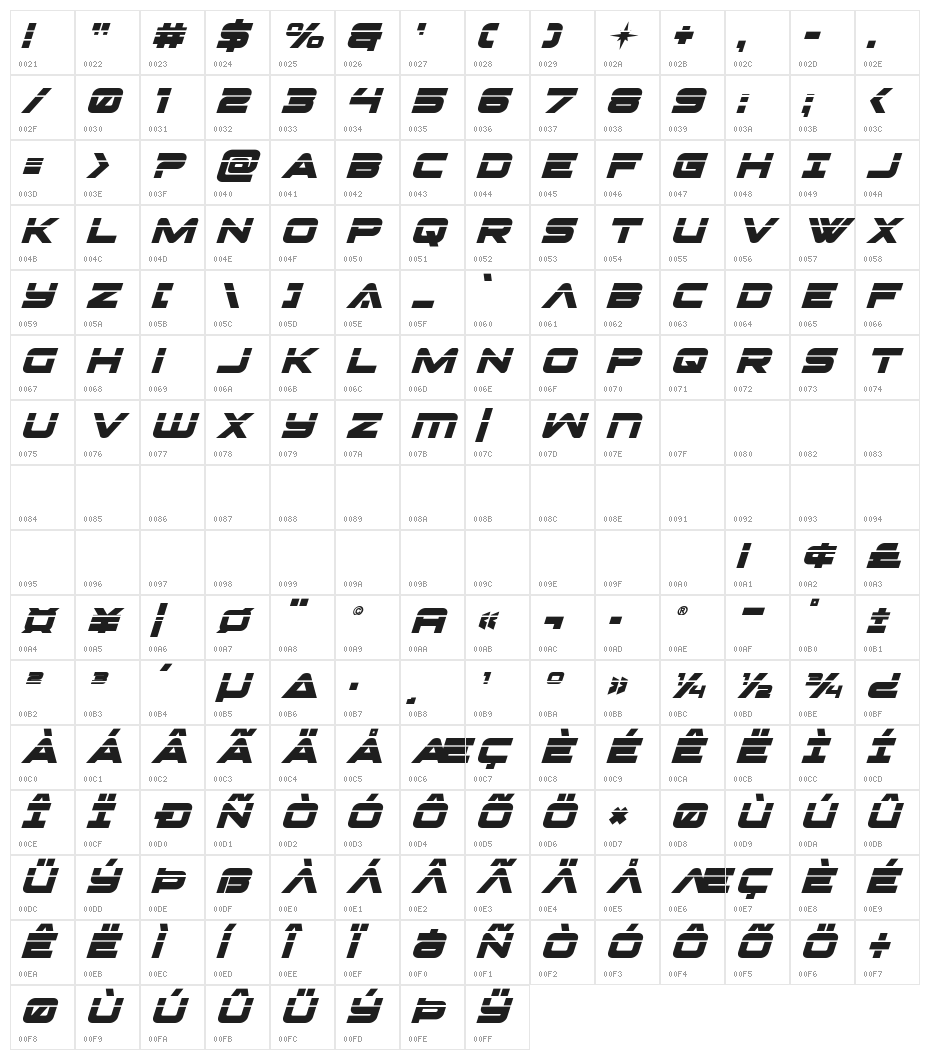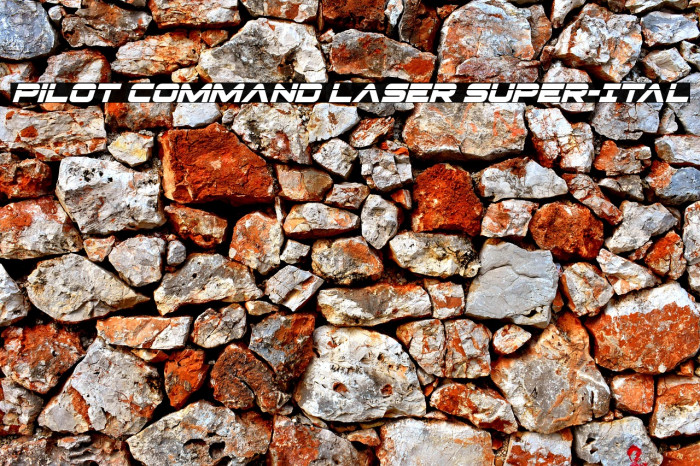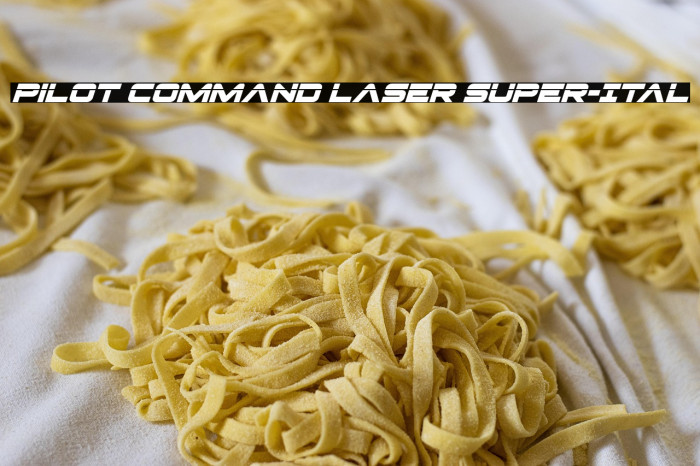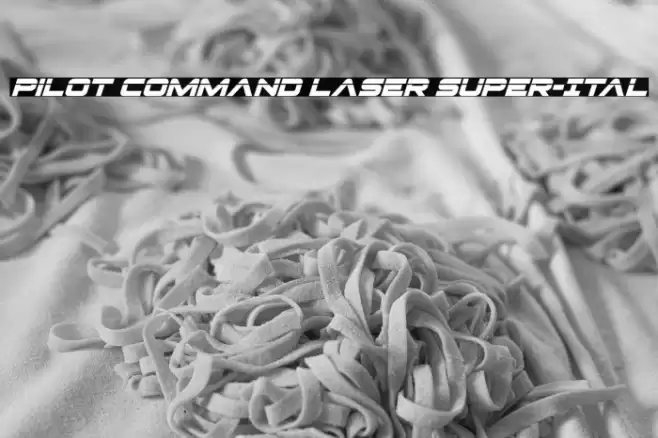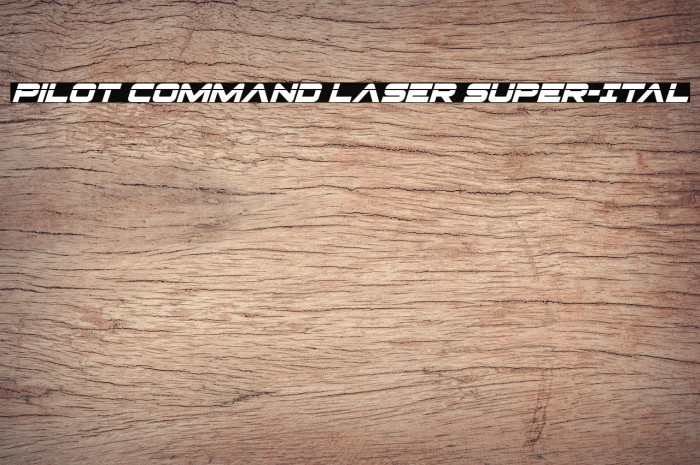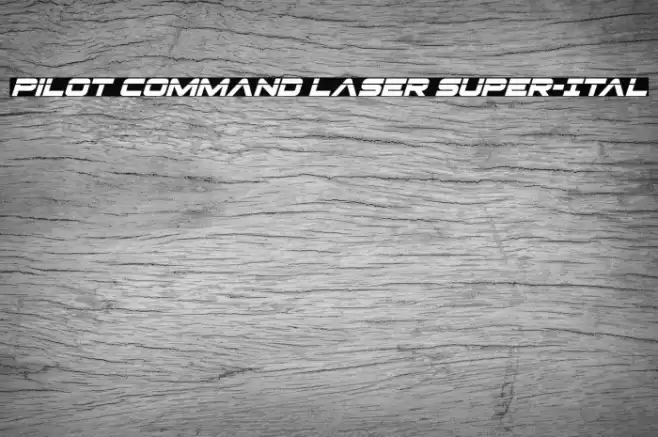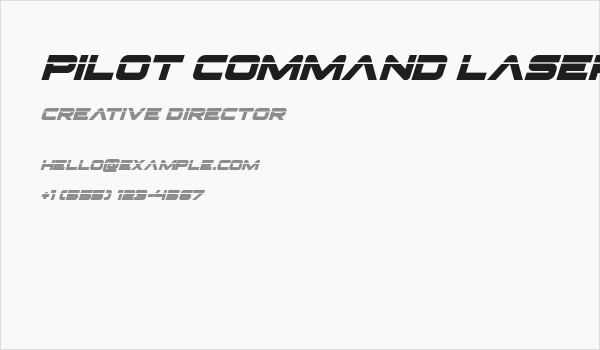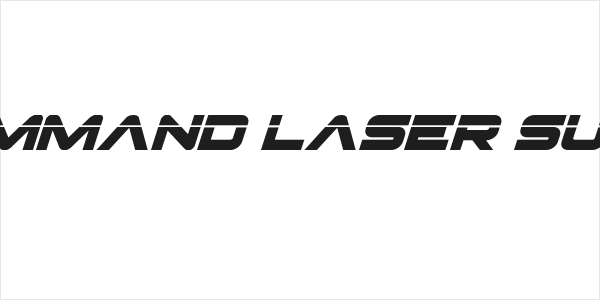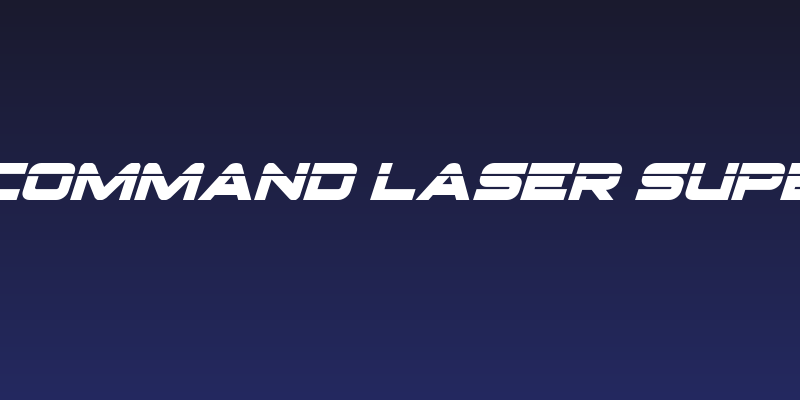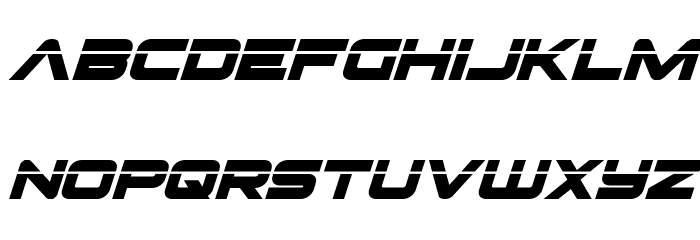
Pilot Command Laser Super-Ital Font
Pilot Command Laser Super-Ital Description
This font features a futuristic and dynamic design, characterized by its sharp angles and sleek lines. The letters are italicized, giving a sense of motion and speed. Each character is bold and impactful, with a distinct geometric style that emphasizes angular cuts and a streamlined appearance. The numbers and special characters maintain this cohesive design, ensuring consistency across all elements. The font's modern aesthetic makes it suitable for projects that require a cutting-edge and energetic look.
| Proposed Projects | Ideal for sci-fi themed projects, technology branding, video game titles, and dynamic posters. |